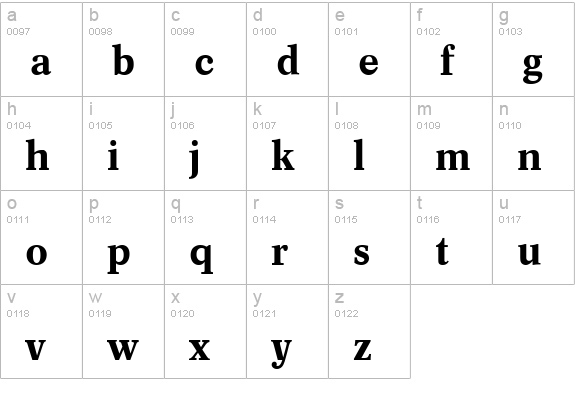
Concorde (R) Medium Font Details
Concorde (R) Medium is a balanced, medium-weight variant in the Concorde typeface family \xE2\x80\x94 well suited to sub-headlines, navigation, and balanced editorial work.
Concorde (R) Medium font is a sophisticated and versatile typeface that strikes the perfect balance between elegance and readability. With its clean lines and timeless appeal, this font is ideal for a wide range of design projects, from professional documents to creative branding materials. The medium weight of the font gives it a modern and approachable look, making it suitable for both digital and print media. What makes Concorde (R) Medium font even more appealing is that it is freely available to download at FontsMarket.com. This means that you can easily access and use this high-quality font in your projects without any cost. Whether you are a designer, a business owner, or a student, having access to a beautiful and well-crafted font like Concorde (R) Medium can elevate the visual impact of your work and help you stand out from the crowd.